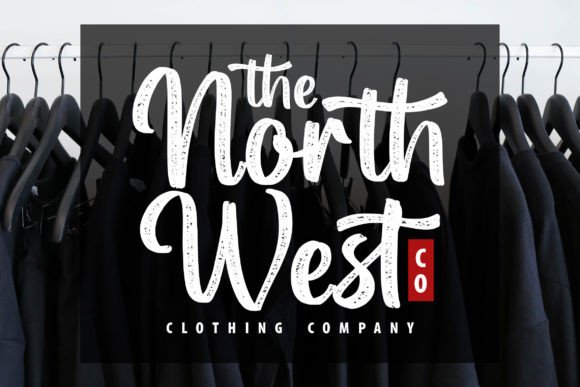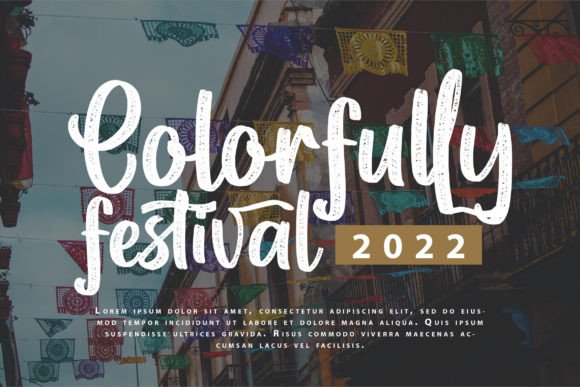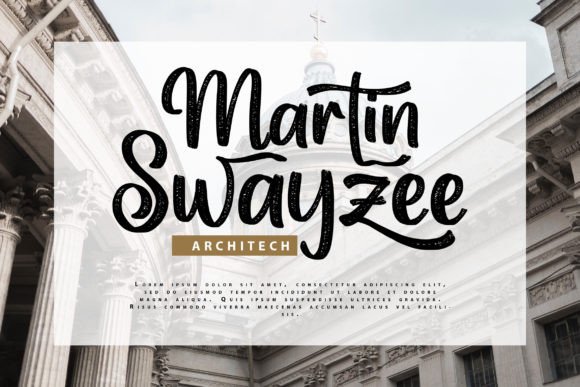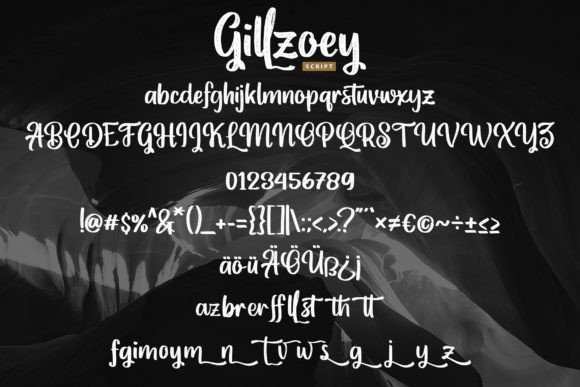
The Designer’s Delight: Unlocking the Creative Potential of Gillzoey Font
I’ll never forget the moment I stumbled upon Gillzoey Font while working on a branding project for a trendy boutique. I was on a tight deadline, and my design was feeling flat and uninspired. I had a clear vision of what I wanted to achieve – a playful, yet sophisticated look that would capture the essence of the brand. But, I was struggling to find the perfect font to bring it all together. That’s when I discovered Gillzoey, a cool, textured brush handwritten font that instantly elevated my design to the next level!
As a designer, I’m always on the lookout for fonts that can help me create stunning visuals with ease. Gillzoey Font has become a true favorite of mine, and here’s why:
- ✨ Masterfully designed with a unique textured brush effect that adds depth and character to any design
- ✅ PUA encoded for easy access to all glyphs and ligatures
- 💫 Highly versatile and suitable for a wide range of creative projects, from branding and advertising to packaging and more
While Gillzoey Font is an excellent choice for many design projects, it’s not without its limitations. A few things to keep in mind:
- ⚠️ Some users may find the font’s textured effect too bold or overpowering for certain designs
- 🤔 Limited availability of language support, which may be a concern for designers working with non-English languages
The Story Behind Gillzoey Font
While the true origins of Gillzoey Font remain a mystery, it’s clear that the designer was inspired by the world of art and creativity. The font’s textured brush effect and elegant lines evoke the feeling of a masterfully crafted work of art. Whether used for branding, advertising, or packaging, Gillzoey Font is sure to bring a touch of sophistication and style to any design.
| What is PUA encoding, and how does it benefit designers? | PUA (Private Use Area) encoding allows designers to access a font’s glyphs and ligatures with ease, making it simpler to create complex designs and typography. |
| Can I use Gillzoey Font for multilingual designs? | While Gillzoey Font may not support all languages, its PUA encoding makes it easier to access a wide range of glyphs and ligatures. However, be sure to check the font’s language support before using it for multilingual designs. |